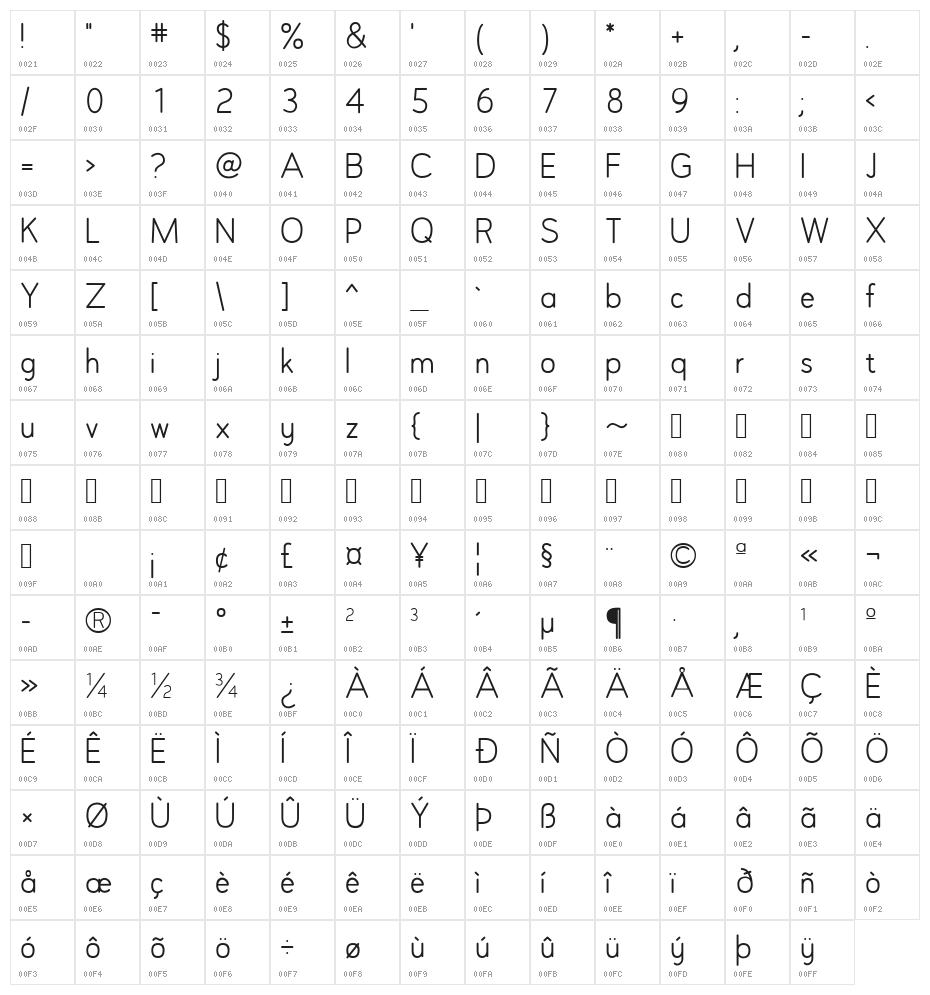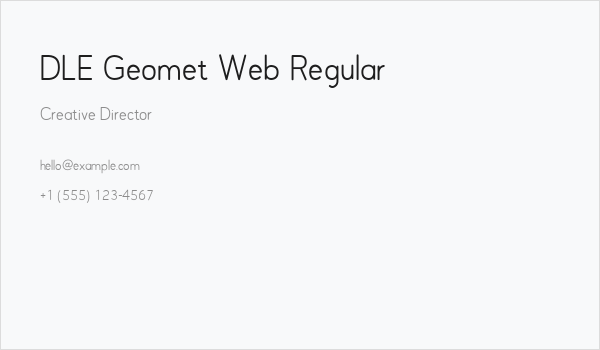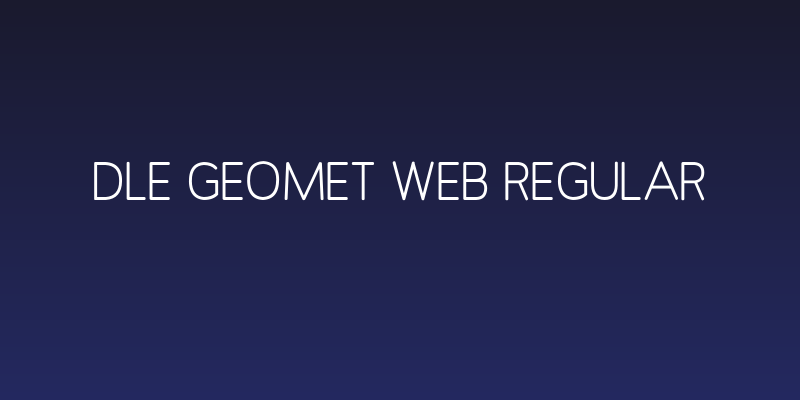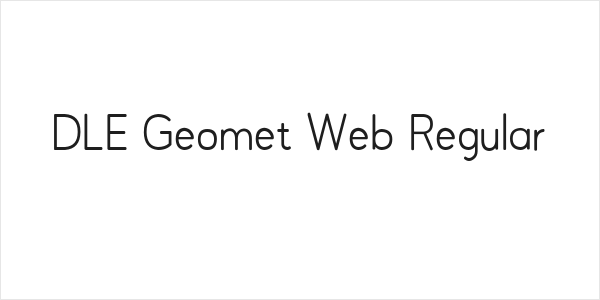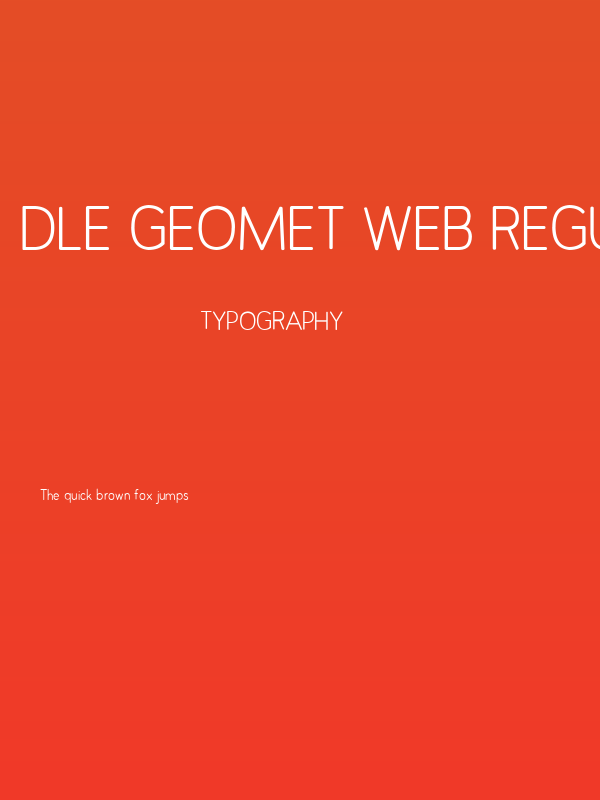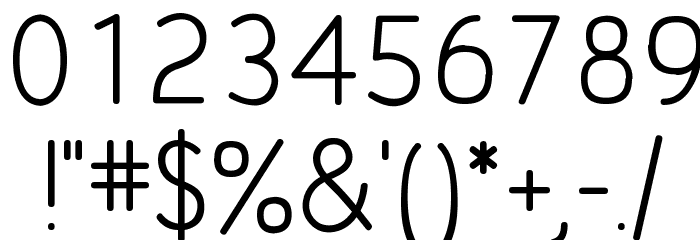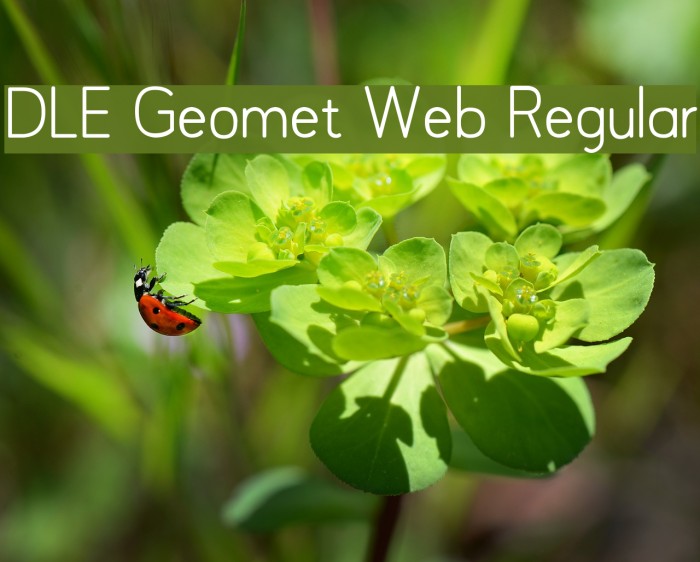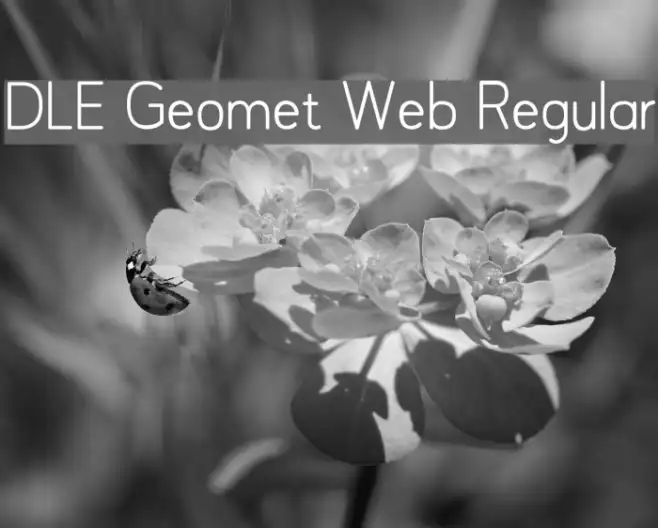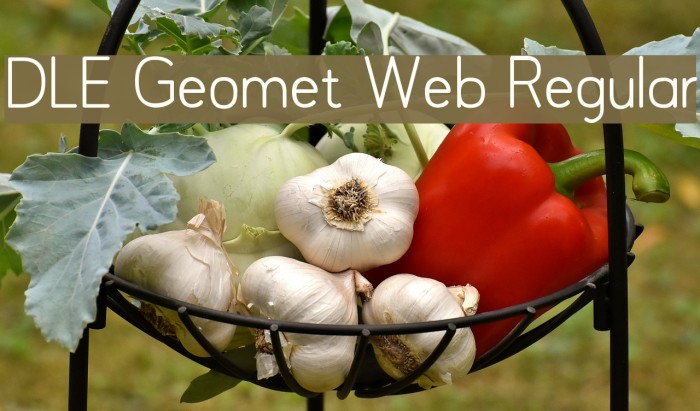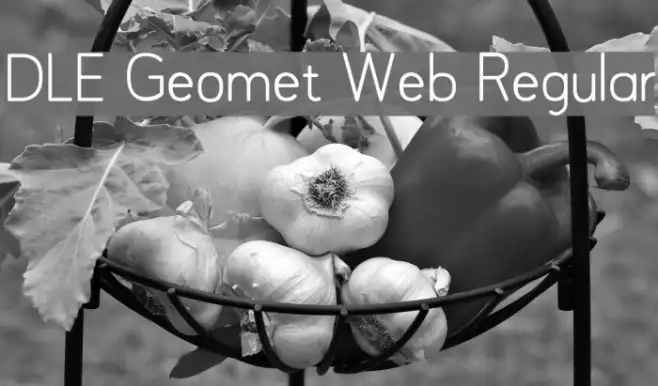
DLE Geomet Web Regular Font
DLE Geomet Web Regular Description
This font features a clean and modern sans-serif design with geometric influences. The characters are uniform in width, providing a balanced and harmonious appearance. The uppercase letters are bold and assertive, while the lowercase letters maintain a consistent and approachable style. The numerals are clear and easy to read, making them suitable for various applications. The special characters are well-integrated, ensuring versatility in design projects. Overall, the font exudes a contemporary and professional feel, making it ideal for digital and print media.